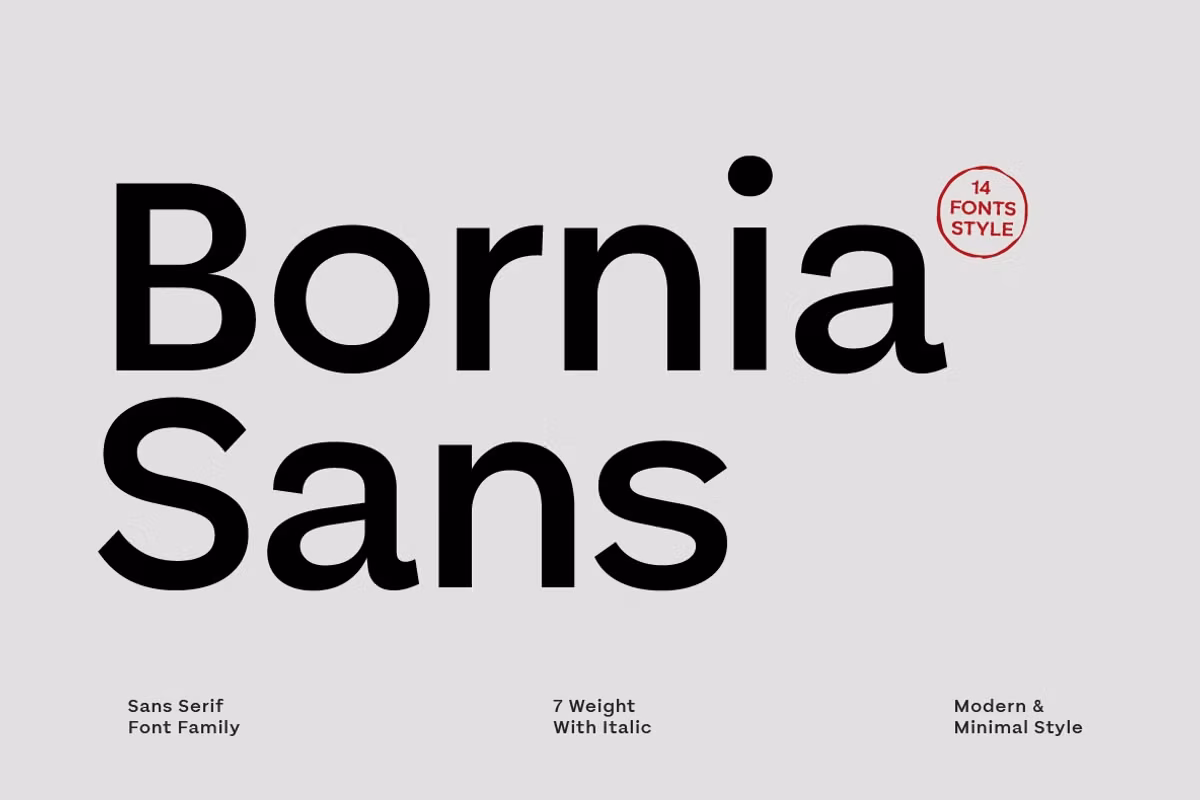
Bornia Sans Modern Minimal Font Free Download is a sleek, clean, and contemporary typeface designed with simplicity and sophistication in mind. Its geometric structure, smooth curves, and minimalist details make it an excellent choice for modern branding, website UI, editorial design, fashion labels, and corporate presentations.
With a focus on clarity and elegance, Bornia Sans Modern Minimal Font Free Download delivers excellent readability across both print and digital platforms. It includes multiple weights, allowing for a versatile typographic hierarchy that maintains a cohesive, refined look.